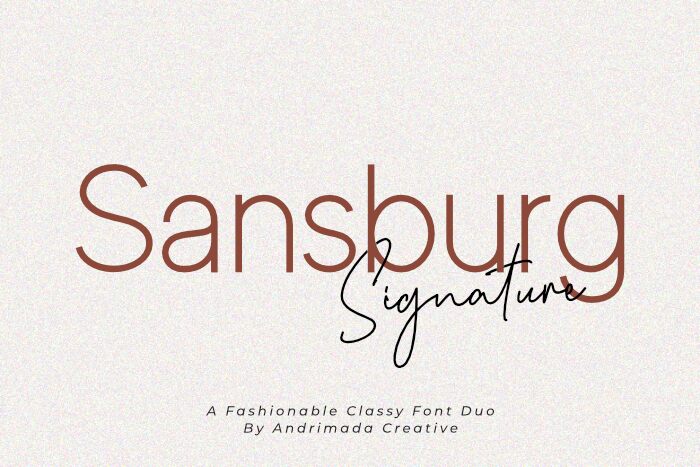
Sansburg Signature is a handwritten signature font designed by Andri Ardianto and Madatype Studio. Its thin, condensed style brings an elegant yet modern look to projects like wedding invitations, certificates of appreciation, and stylish logos. This font is perfect for creating a personal touch that won't go unnoticed. Sansburg Signature adds a unique flair to any design project.